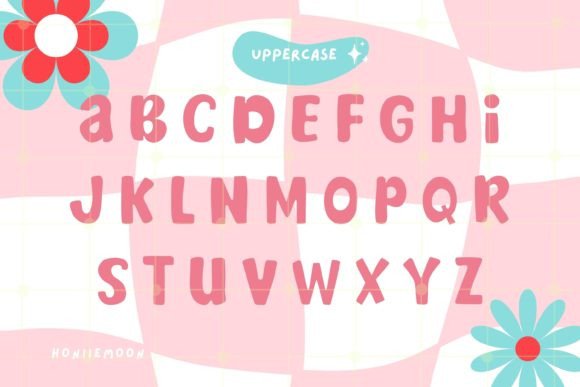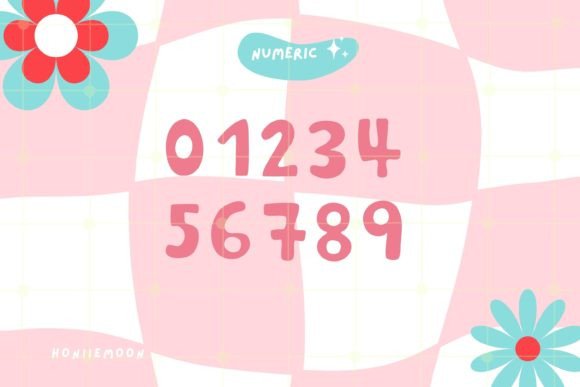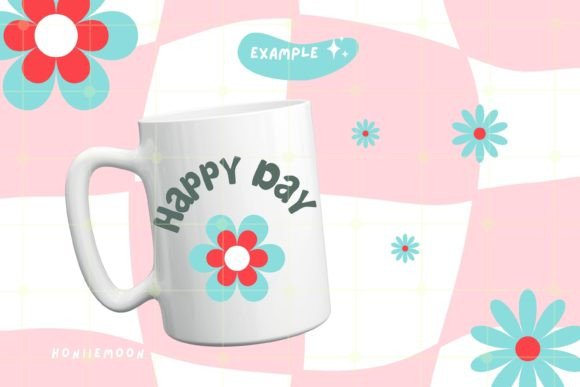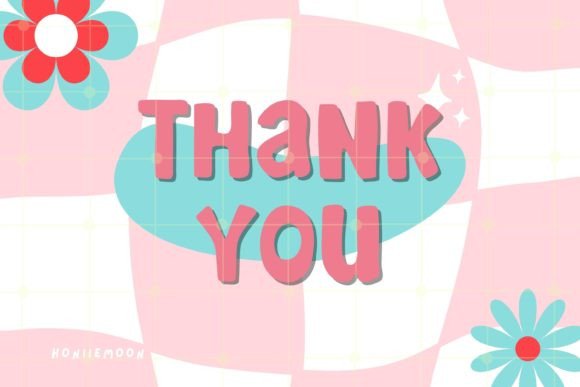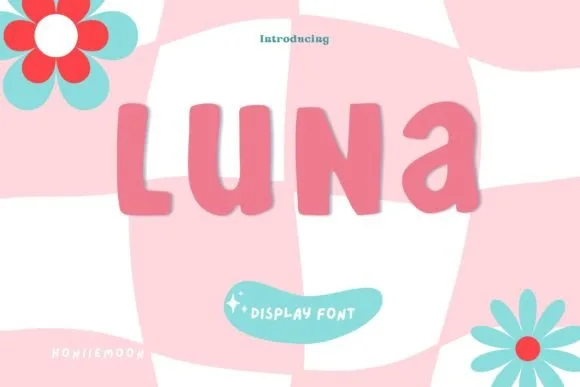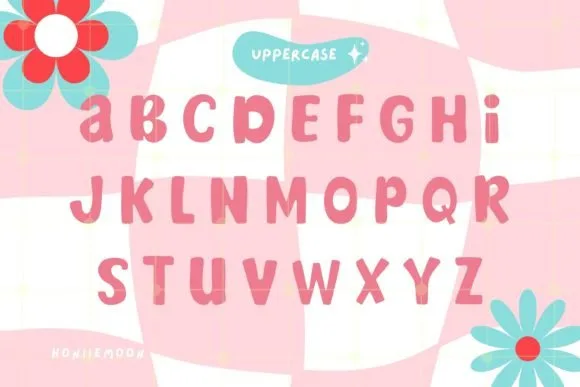
Luna Font
About Luna Font
Introducing “LUNA,” a cool and fun display font that brings a playful and jolly vibe to your designs. This colorful and bold font is perfect for adding a touch of whimsy and liveliness to any project. With LUNA, the only limit is your imagination!
LUNA’s unique design combines cuteness and boldness, making it versatile and suitable for a wide range of creative ideas. Whether you’re working on posters, logos, packaging, social media graphics, or any other design project, LUNA will enhance your creations and make them stand out.
The lively and vibrant nature of LUNA makes it perfect for children’s projects, party invitations, festive occasions, and anything that requires a fun and cheerful atmosphere. The font’s playful curves, varied letterforms, and colorful appearance add a sense of joy and excitement to your designs.
When it comes to posters and advertisements, LUNA grabs attention with its bold and eye-catching display. The unique letterforms and the interplay of colors make your message pop and draw the viewer’s eye. Whether you’re promoting a product, an event, or a special offer, LUNA will help you create an impactful and memorable visual.
Logos designed with LUNA exude personality and charm. The font’s playful aesthetic can add a touch of friendliness and approachability to your brand identity. Its boldness ensures that your logo will be easily recognizable and leave a lasting impression on your audience.
For packaging designs, LUNA adds a burst of energy and excitement. Its vibrant colors and playful forms can make your product stand out on the shelf and catch the customer’s attention. Whether it’s food packaging, children’s toys, or any other product, LUNA’s unique style will make it more appealing and memorable.
Incorporating LUNA into your social media graphics brings a fun and engaging element to your posts. Use the font to create attention-grabbing headlines, quotes, or captions that will make your content shareable and enjoyable. LUNA’s colorful and jolly appearance is perfect for platforms like Instagram, where visual appeal is key.
With LUNA, you can unleash your creativity and add a cool and fun touch to your designs. Let this colorful and bold display font enhance each of your creative ideas and bring them to life. Embrace the playful nature of LUNA and watch your designs shine with joy and energy!